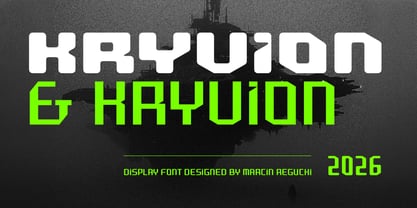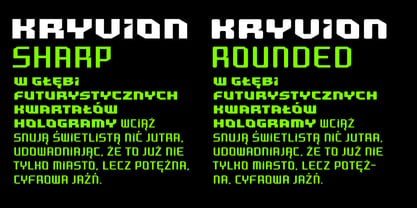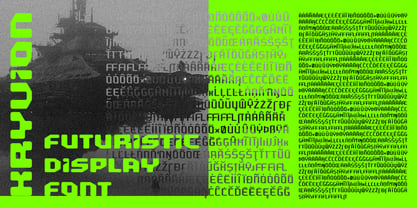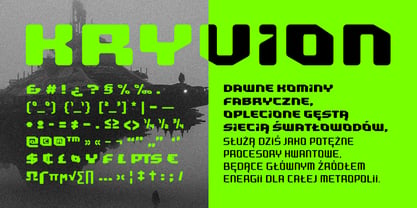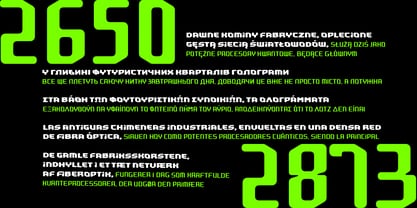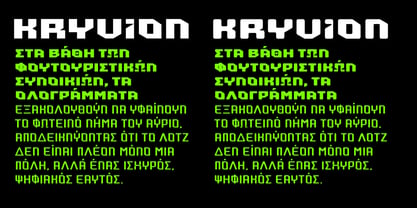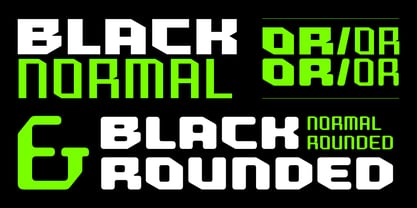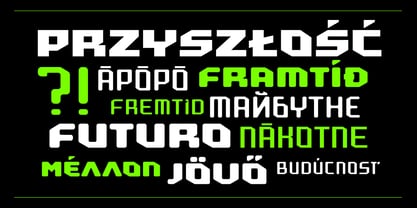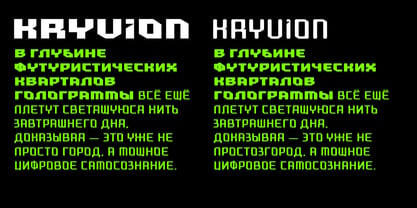
Kryvion
by Marcin Regucki
The Kryvion Font Family was designed by Marcin Regucki and published by Marcin Regucki. Kryvion contains 4 styles and family package options. More about this family
Kryvion is a futuristic display typeface engineered for maximum impact in high-tech digital environments. Moving away from traditional humanist tropes, Kryvion utilizes a modular, grid-based construction designed to feel less like a drawn alphabet and more like a precision-machined component. The family system is defined by its two core treatments: Kryvion Sharp: The "unfiltered" version of the typeface. It features aggressive 45° cuts, crystalline terminals, and zero-radius junctions. It is the definitive choice for high-performance aerospace UI, tactical branding, and industrial headlines. Kryvion Rounded: The "machined" evolution of the core logic. By applying controlled radii to the modular skeleton, this variant captures a sleek, aerodynamic aesthetic. It balances futuristic sturdiness with a polished, "capsule-core" finish, ideal for next-gen consumer hardware and luxury spacecraft interiors.